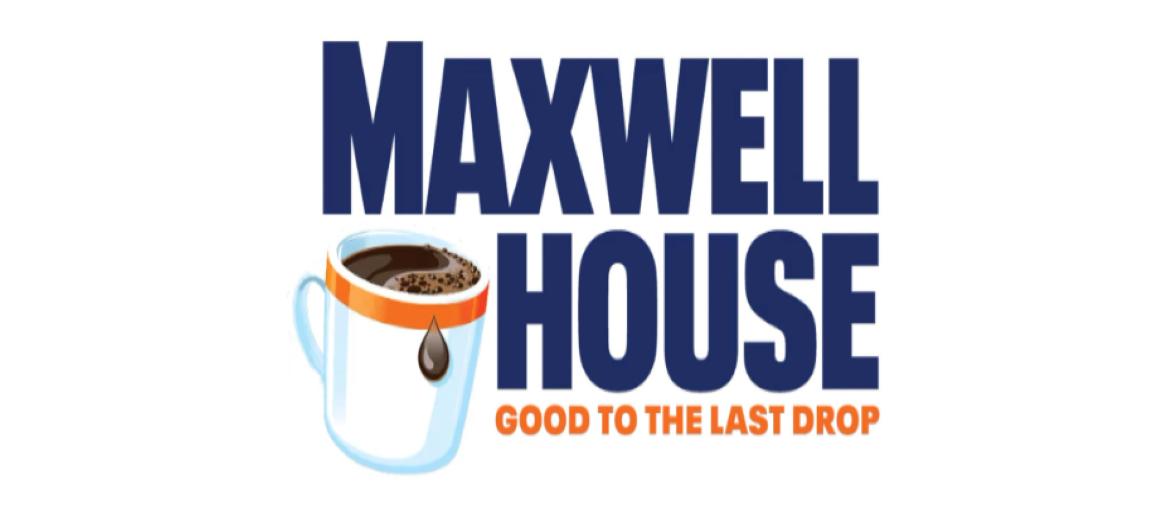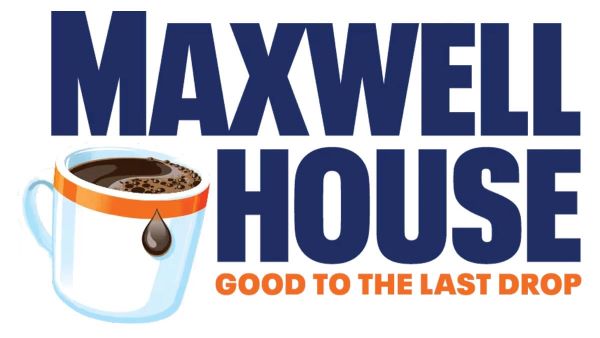
Maxwell House Font
What Font is Maxwell House 2025?
The Maxwell House Font used in the brand’s logo closely resembles Neue Plak Condensed ExtraBlack, a premium, tightly-condensed sans-serif with bold weight and strong presence. Since this exact style may require licensing, we’ve found a free alternative font that replicates its condensed, bold geometric look — ideal for recreating the visual identity inspired by Maxwell House.
About Maxwell House
Maxwell House is an iconic American coffee brand established in 1892. Known for its signature blue can and the long-standing tagline “Good to the Last Drop,” the brand has evolved its visual identity over the decades to reflect both tradition and modernity.